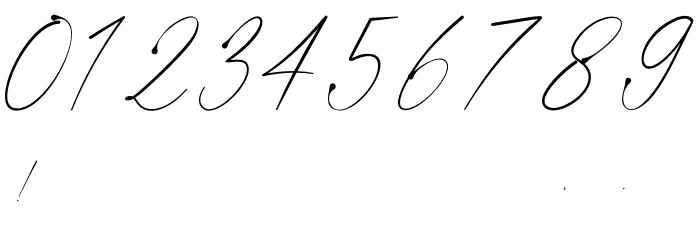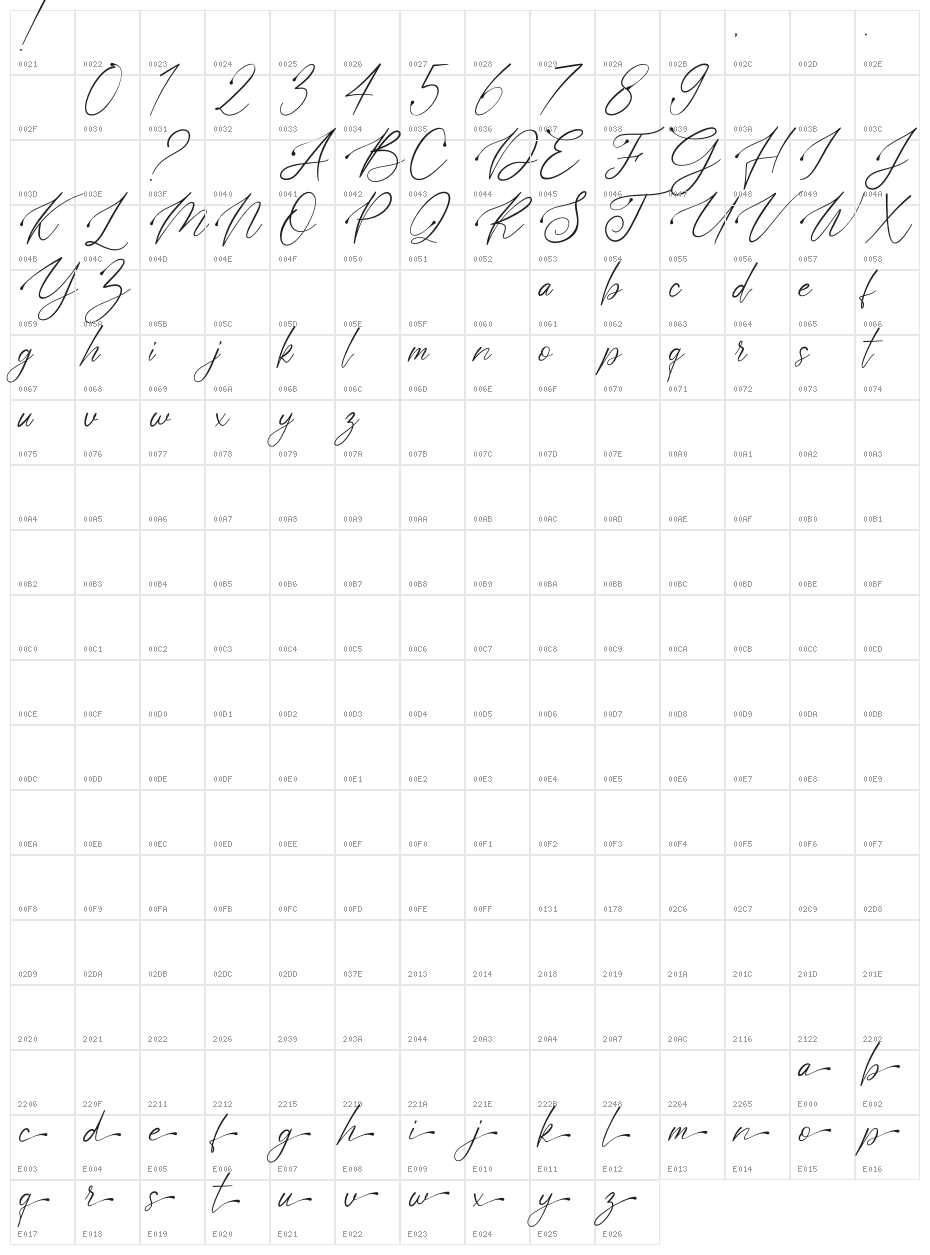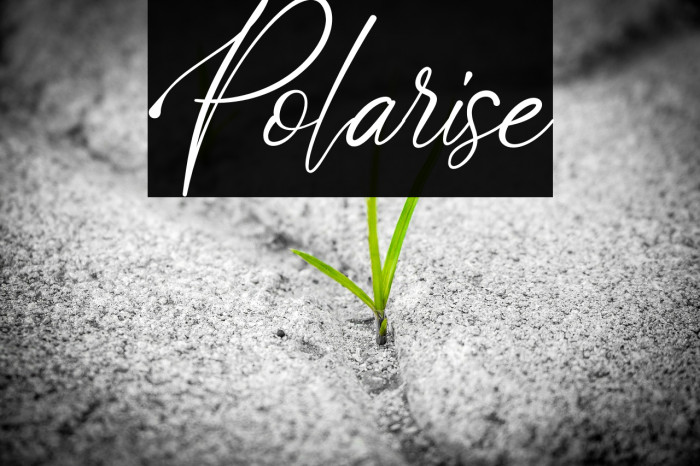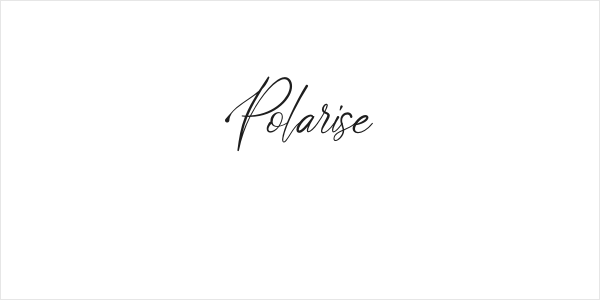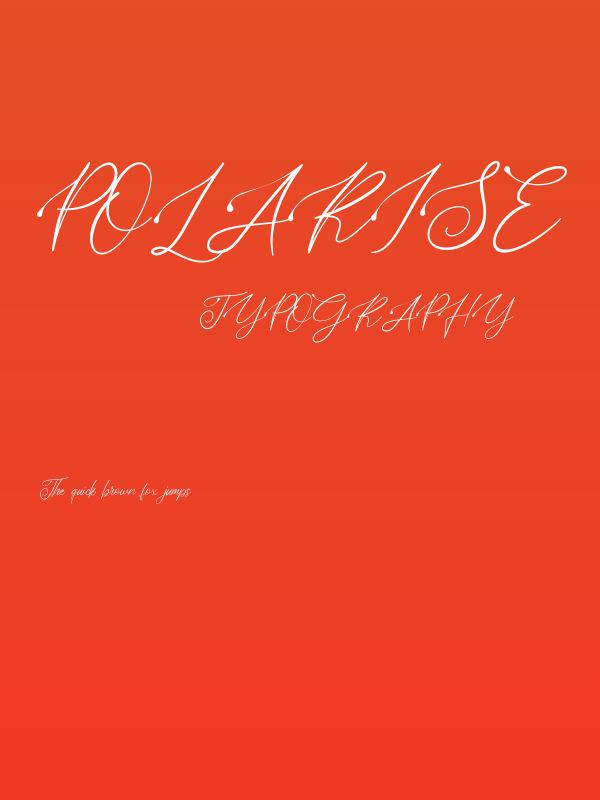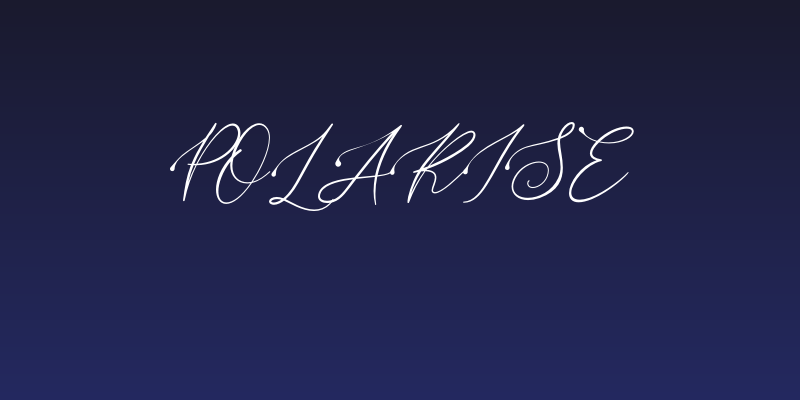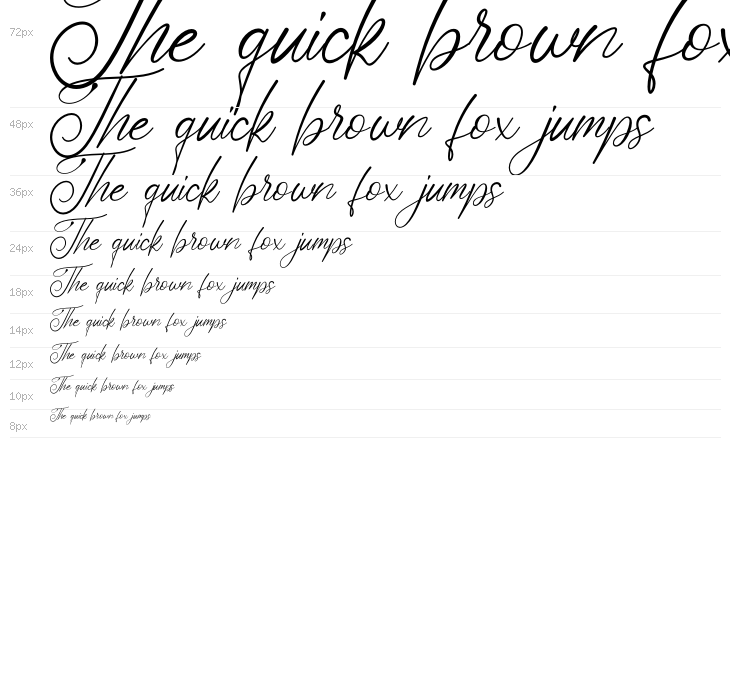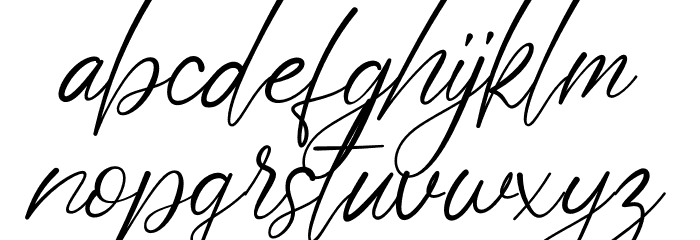
Polarise Font
Polarise Description
This elegant script font features flowing, interconnected letters that mimic the fluidity of cursive handwriting. The uppercase letters are slightly more ornate, with delicate loops and flourishes, while the lowercase letters maintain a consistent, smooth flow. The numbers are styled to match the letters, with a graceful and sophisticated appearance. The font's thin strokes and high contrast give it a refined and polished look, making it ideal for formal invitations, elegant branding, and artistic projects.
| Use Case | Headlines, Invitations, Branding |
| Proposed Projects | Ideal for wedding invitations, elegant branding, artistic projects, and formal event materials. |